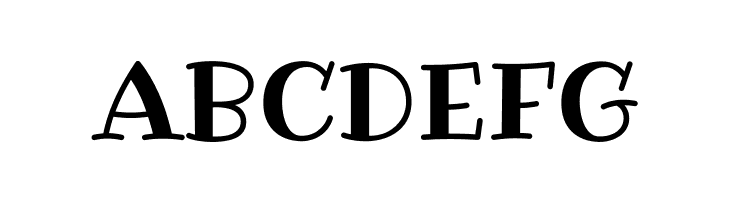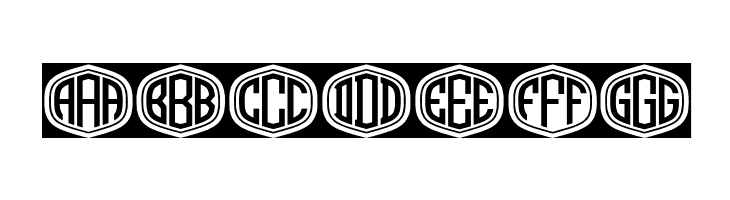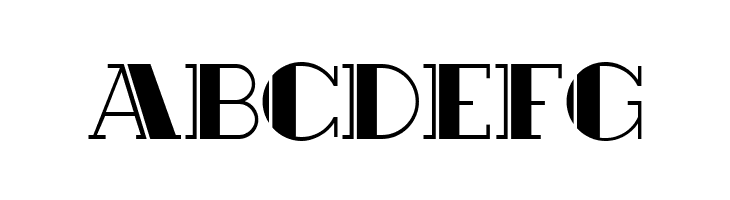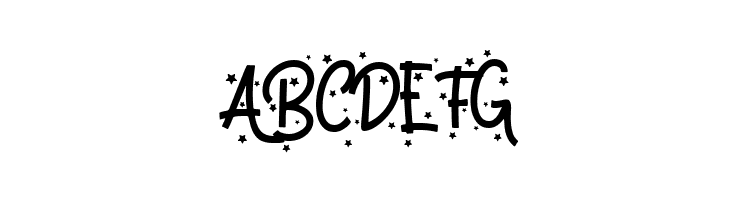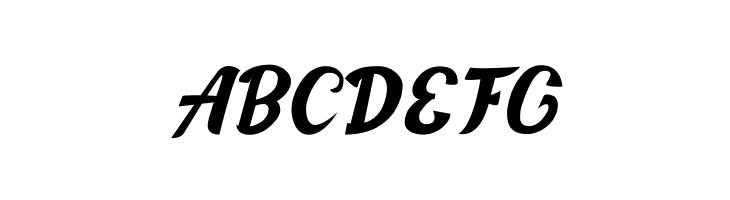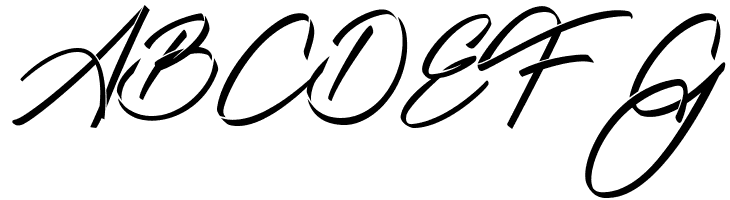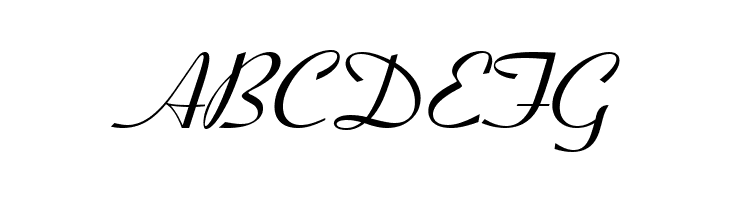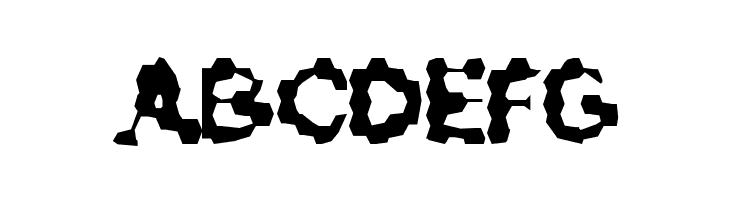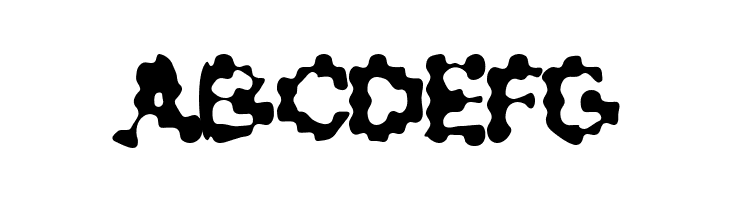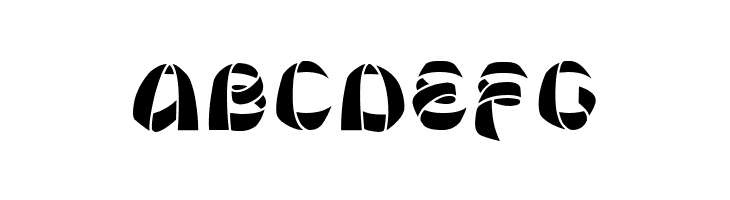
Ribbons 2 Font
A dynamic, ribbon-like font with flowing, bold strokes and elegant curves.
Ribbons and banners Regular Font
A decorative font with ribbon-like, angular characters and a bold, vintage-modern style.
Ribbons in the wind Font
A dynamic and flowing script font with elegant, interconnected strokes.
ribbons Regular Font
An intricate, ribbon-like decorative font with elegant curves and lines.
RibbonShadow Font
A ribbon-inspired font with a shadow effect, offering a three-dimensional and elegant appearance.
RibbonticAL Font
A playful, handwritten-style font with bold, irregular strokes.
Ribeat Font
A playful, bold font with rounded, thick strokes and a whimsical style.
Riberio Demo Font
A playful, rounded font with a whimsical and friendly design.
Ribeye Font
A playful, bold font with high contrast and unique curves.
Ribeye Marrow Font
A playful, decorative font with bold, hand-drawn characters and whimsical curves.
Ribeye-Regular Font
A playful, bold font with a hand-drawn, dynamic style.
RibeyeMarrow-Regular Font
A playful, whimsical serif font with bold, rounded serifs and hand-drawn appeal.
Ribons Font
A bold, playful font with a hand-drawn, organic style.
Riborn Font
A bold, distressed font with a vintage, handcrafted look.
Ricasso Regular Font
A geometric and modern font with a strong, angular structure and uniform stroke width.
Rice Cracker Font
A playful, hand-drawn font with irregular, whimsical strokes.
Ricecakes Font
A decorative font with characters formed by rice-like shapes, offering a playful and textured look.
Ricefield Font
A bold, elegant script font with dynamic, flowing characters.
rich Font
A futuristic, segmented font with a digital and geometric style.